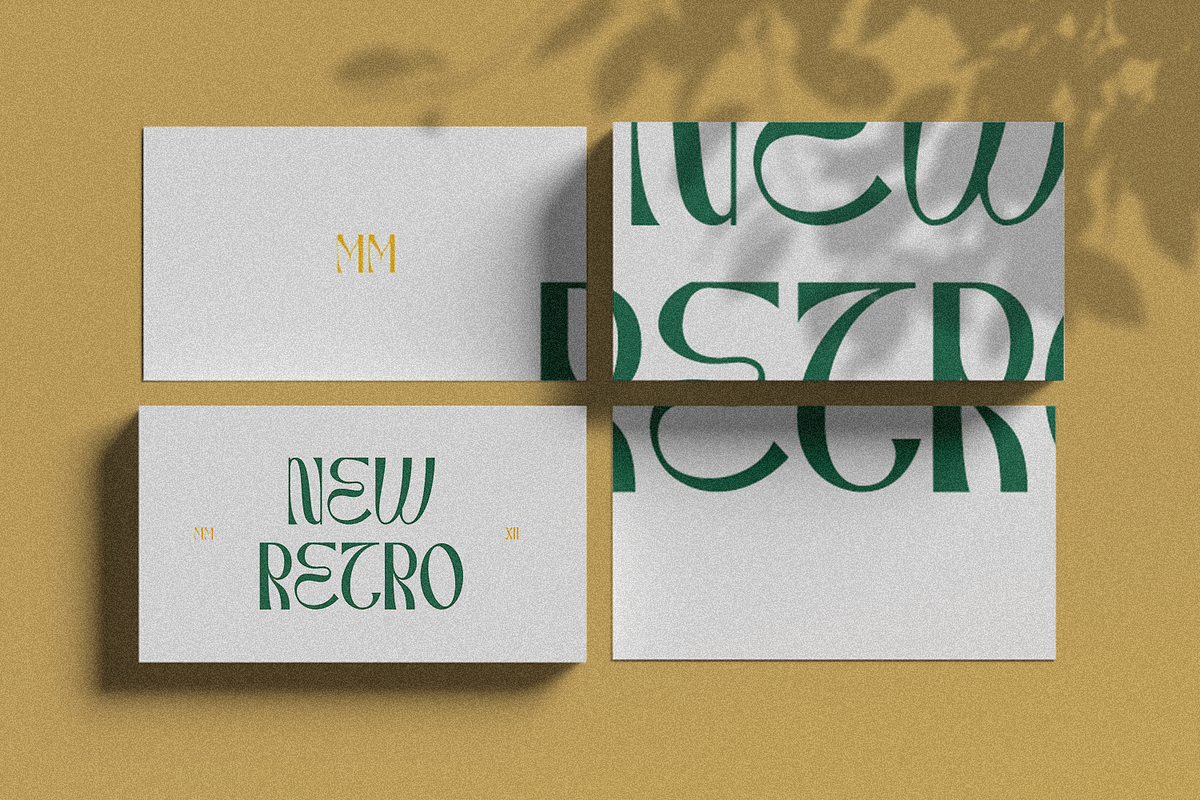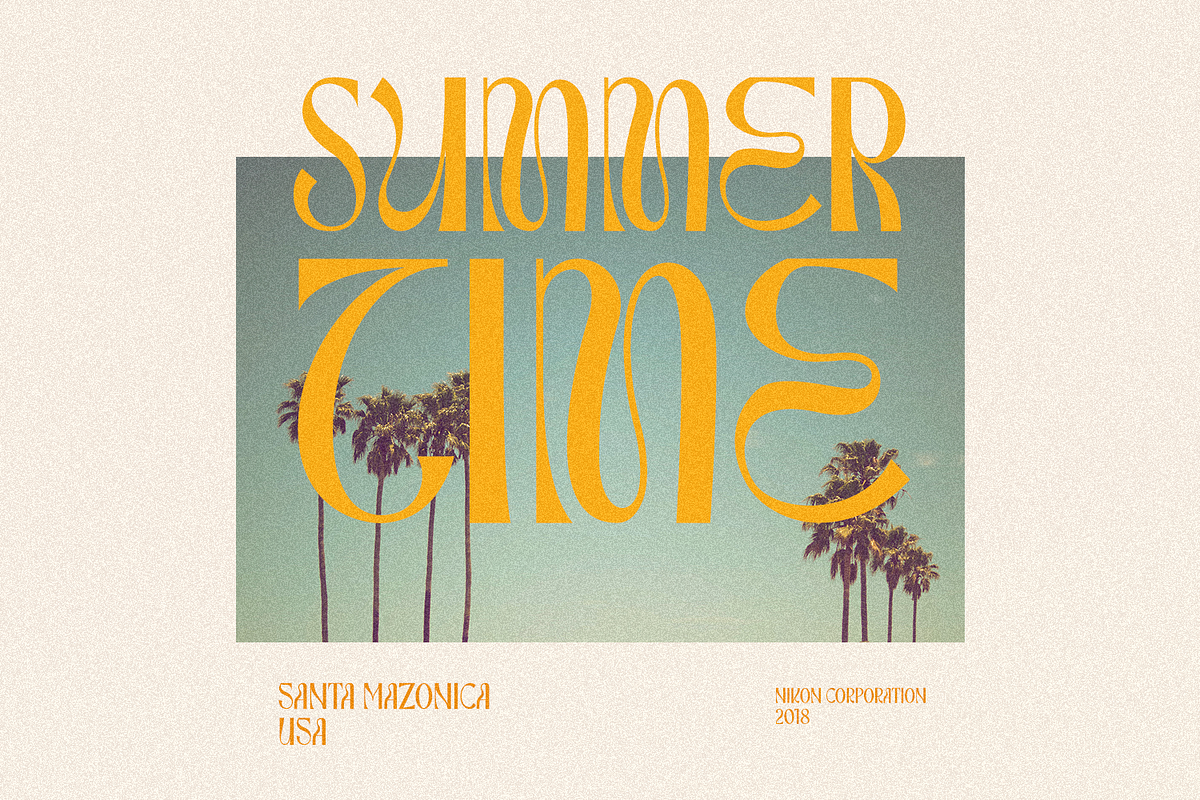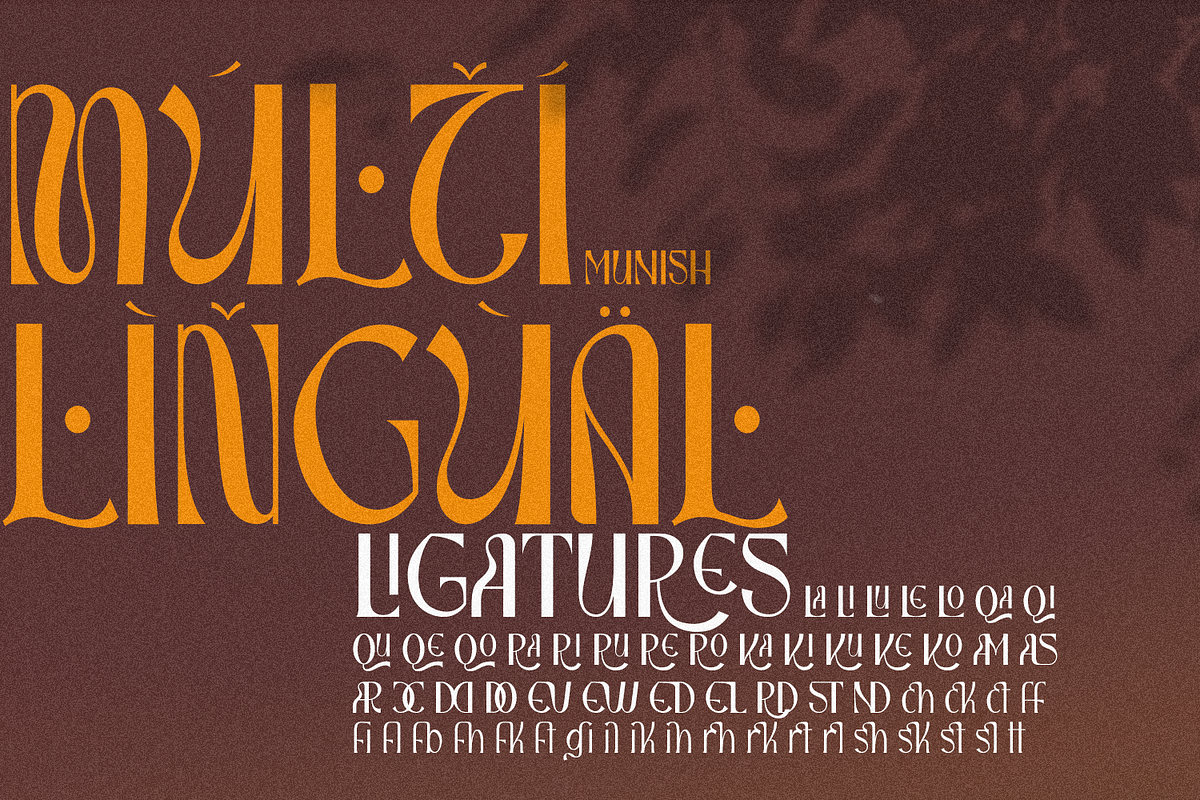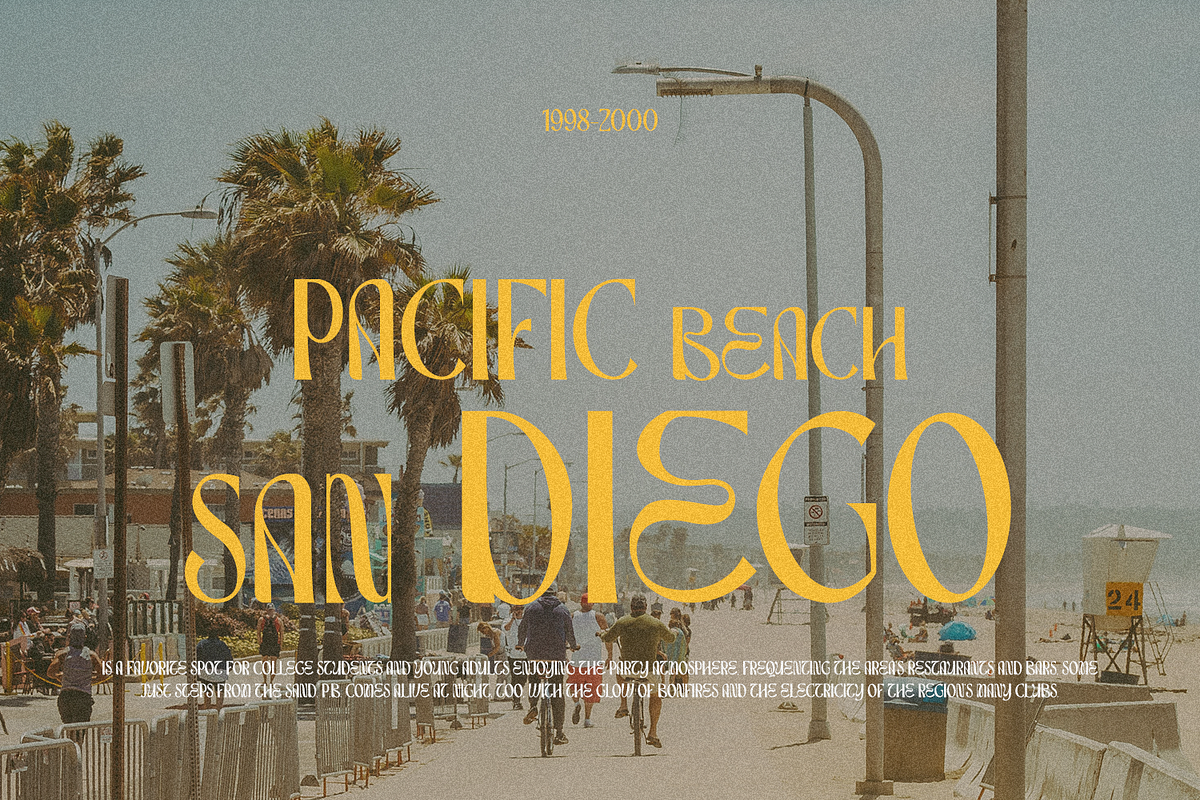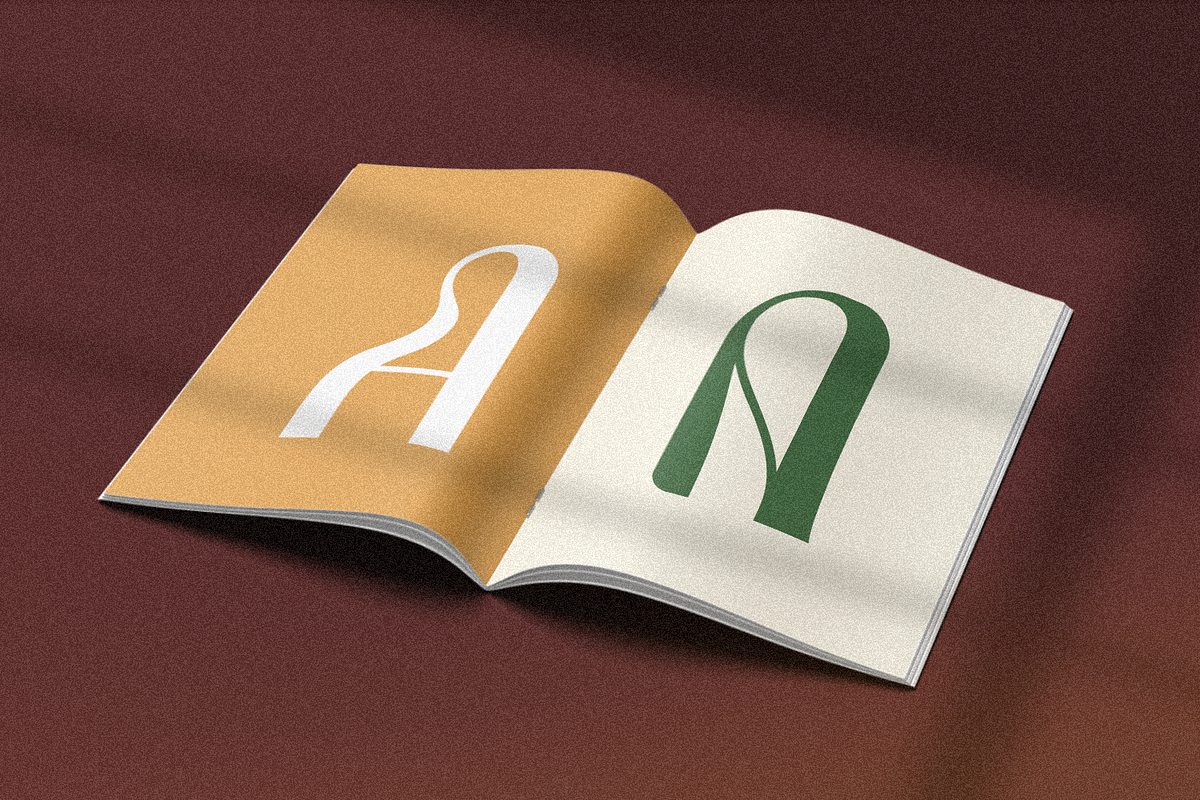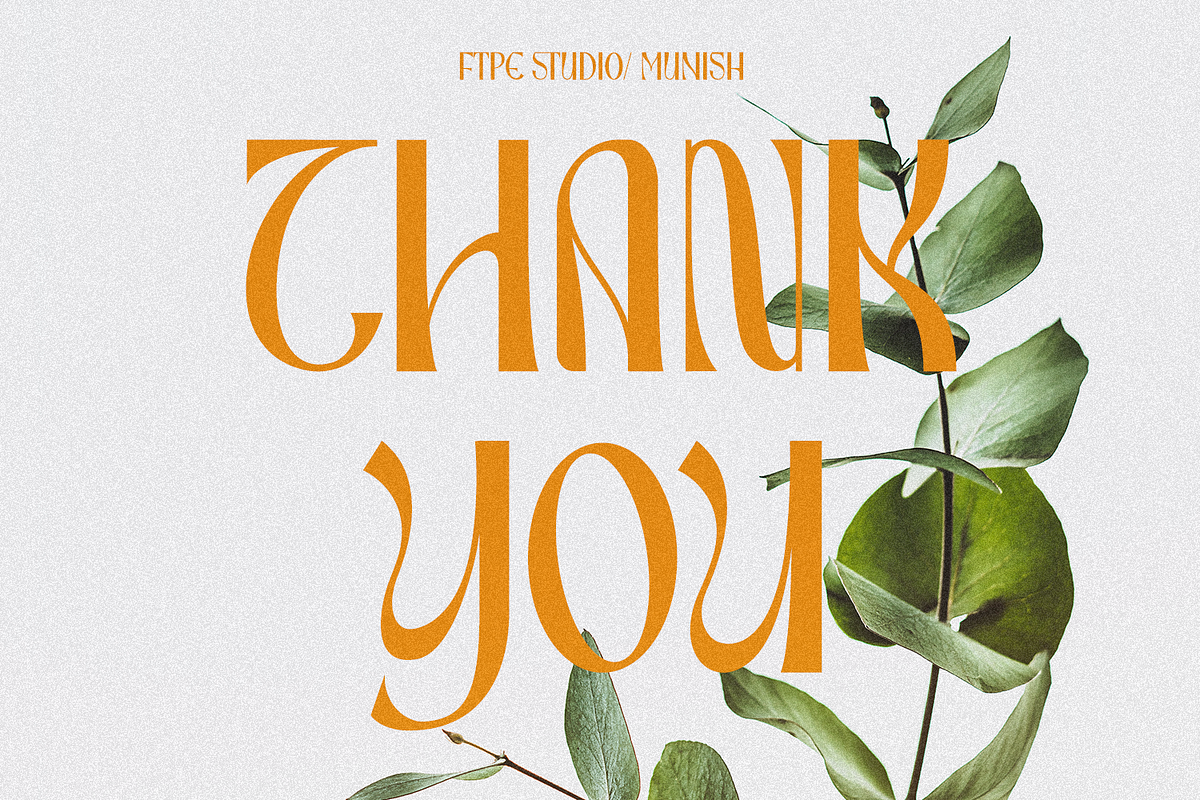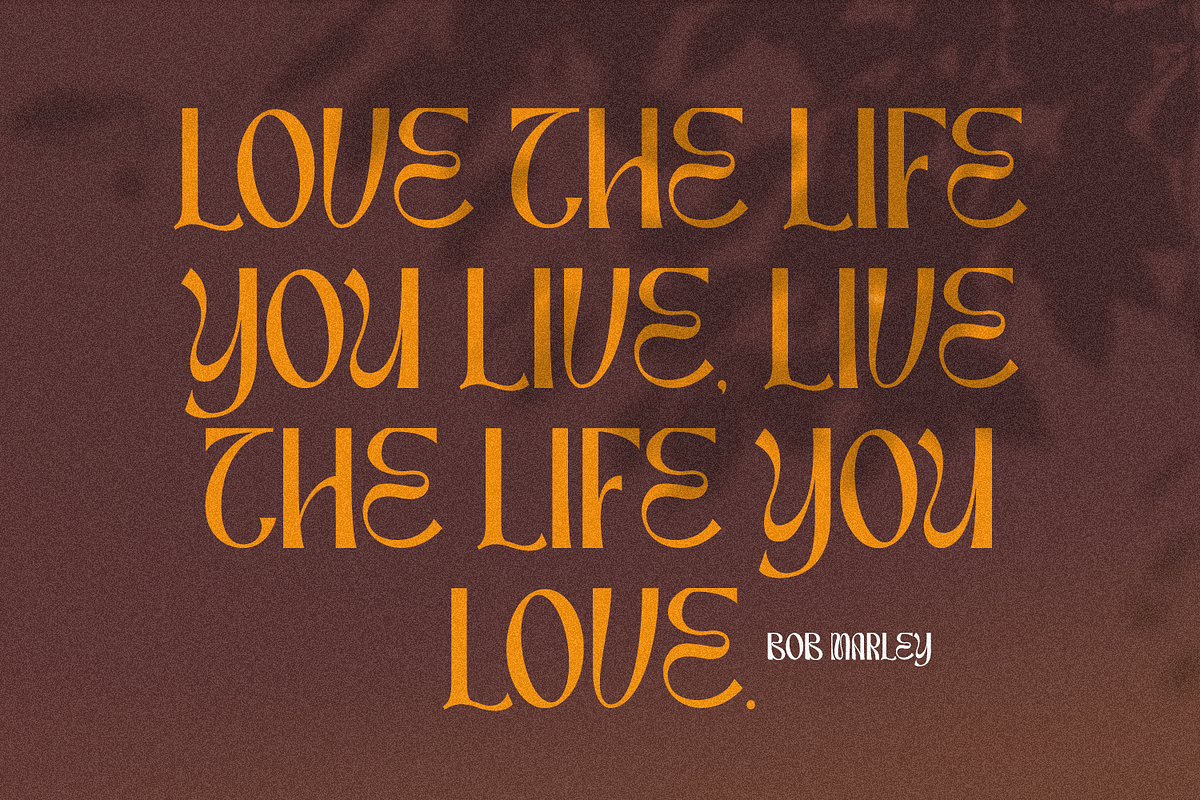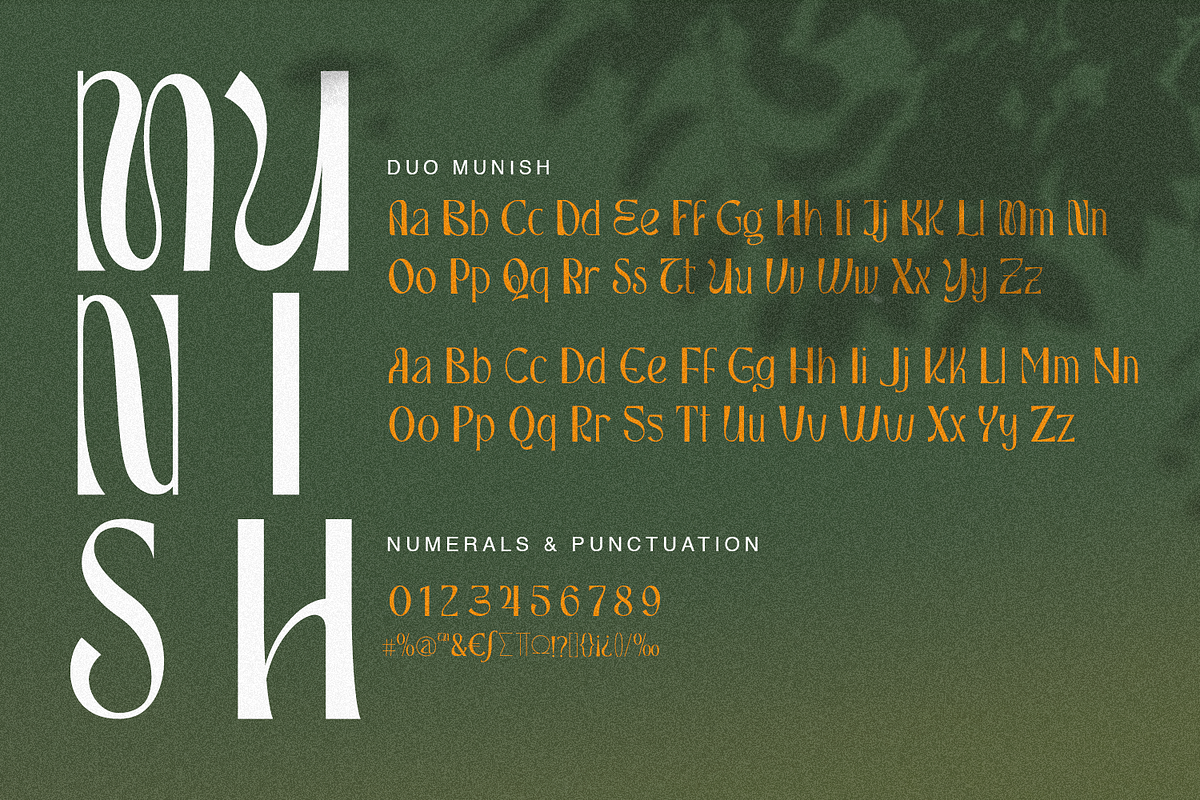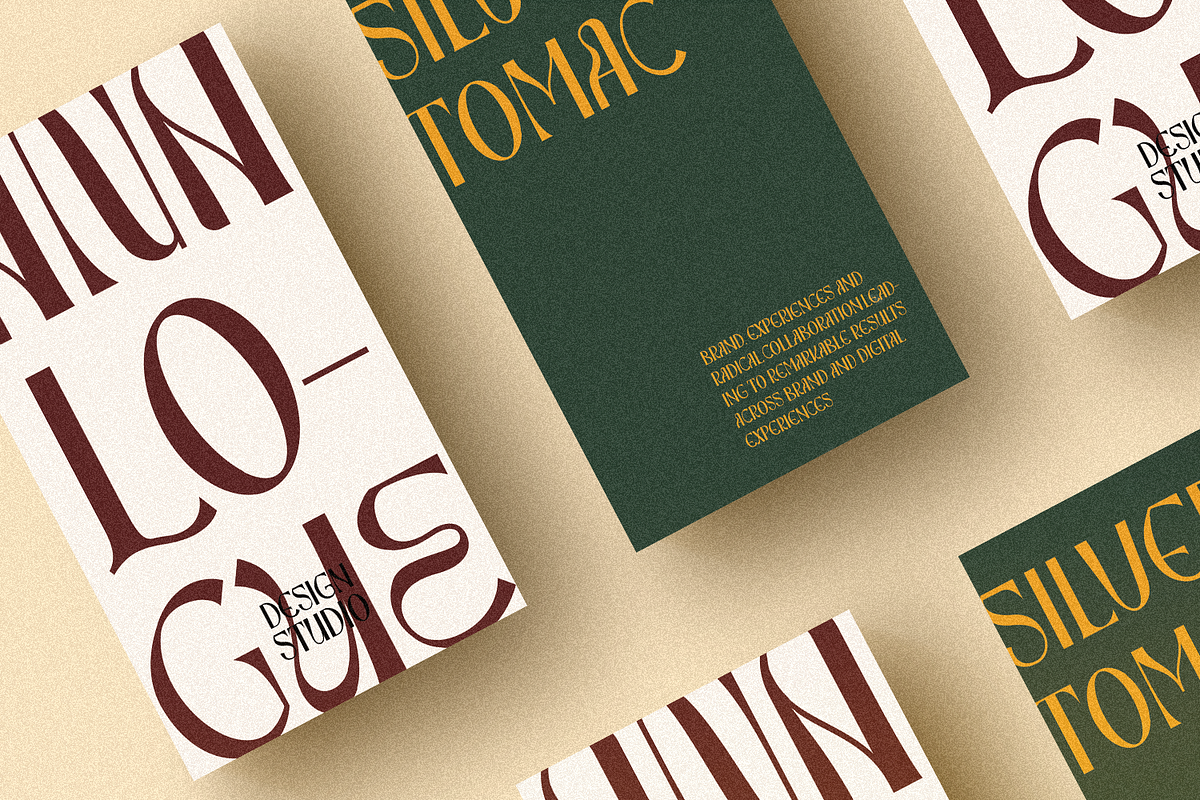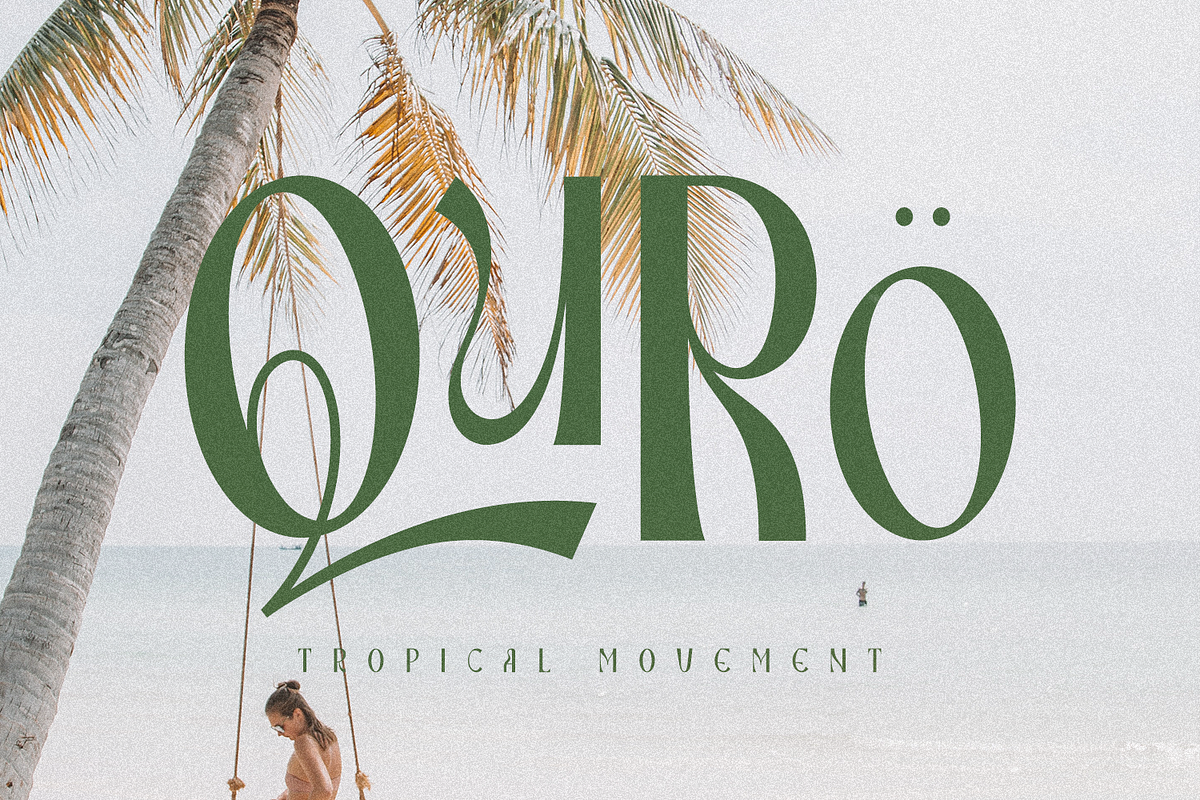
Munish
Introducing MUNISH, a playful and nostalgic font that is in style. It has an unique 1970s feel because to its massive curves. MUNISH seems really at work among those vintage designs, logos, and brands. It has separate lowercase and uppercase letters, numerals, punctuation, and multilingual letters, in addition to punctuation. Ligature typefaces are useful for anything you can think of!
- 2 Styles
- Stylistic Ligatures
- Multilingual Support for ä ö ü Ä Ö Ü ...